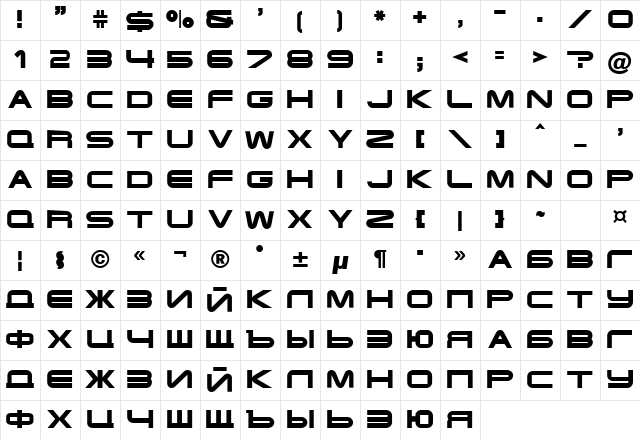
Complete Terminator Cyr 4 Semi-expanded Bold glyph index. Displaying only characters natively supported by Terminator Cyr 4 Semi-expanded Bold font.
Terminator Cyr 4 is a composed and adaptable typeface that performs quietly and consistently across a wide range of design contexts. Its bold stroke weight gives it real presence on the page.